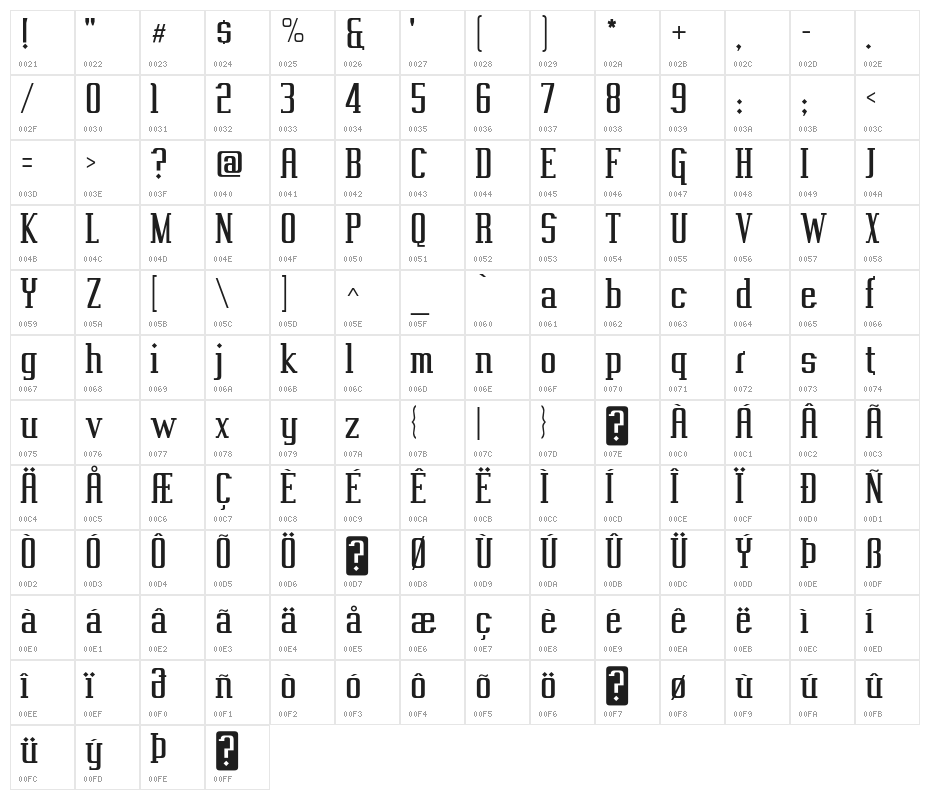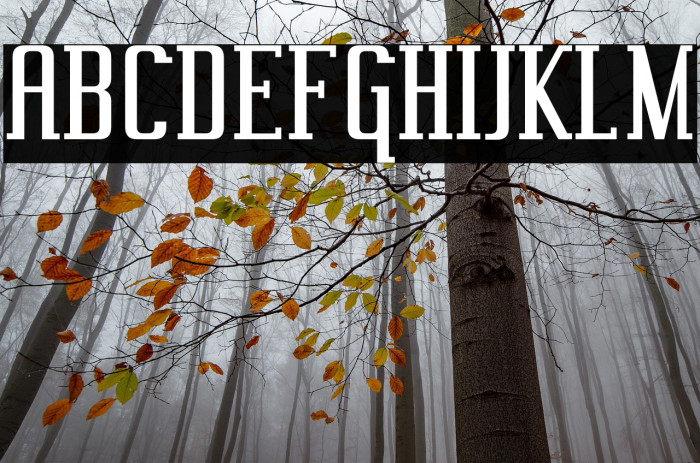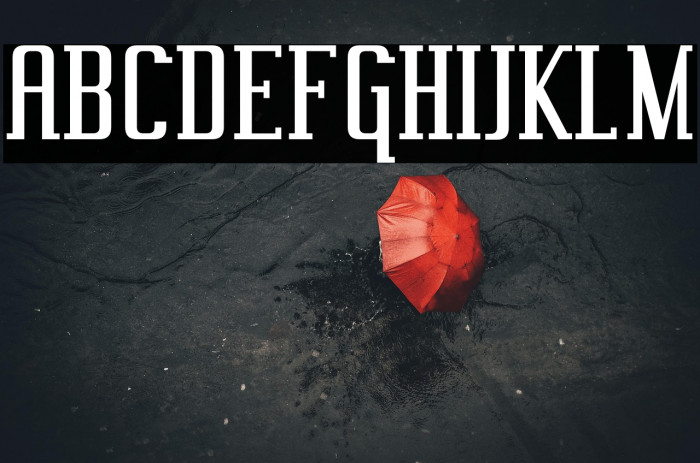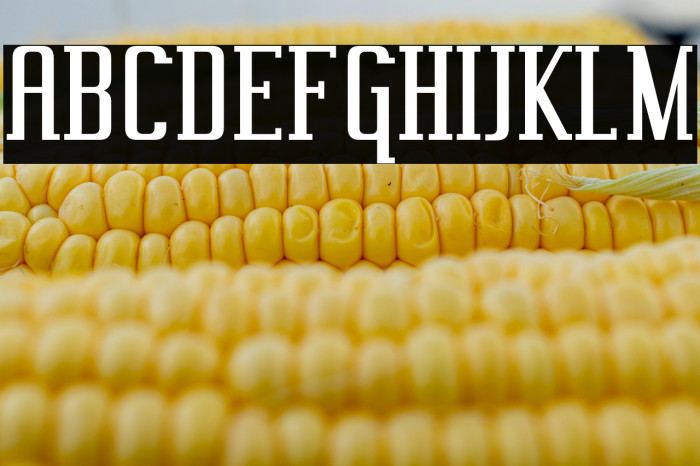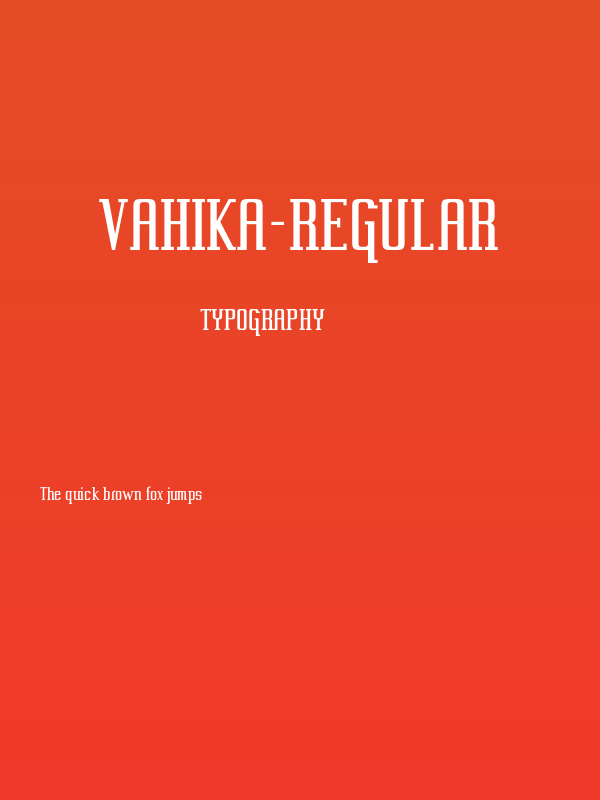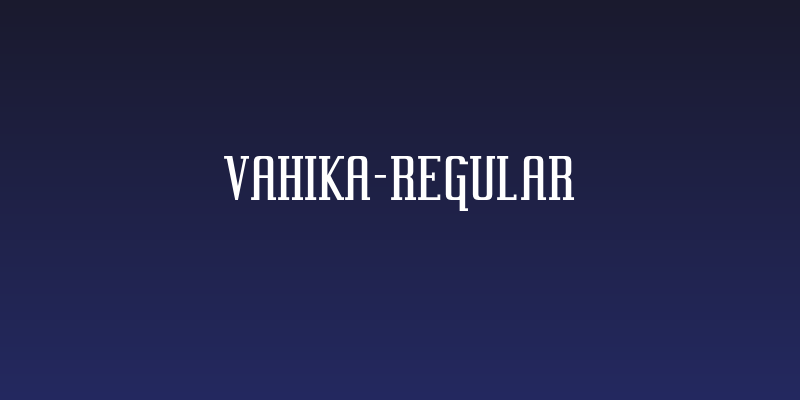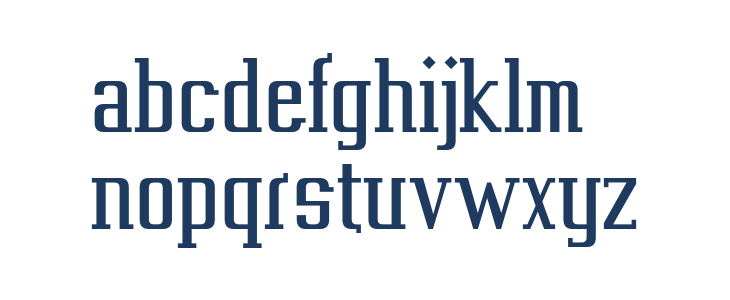
Vahika-Regular Font
Vahika-Regular Description
This font features a bold, slab serif style with a strong presence and distinctive character. The uppercase letters are tall and narrow, with pronounced serifs that add a touch of elegance and authority. The lowercase letters maintain a consistent style, offering a harmonious balance with the uppercase. The numerals are clear and easy to read, making them suitable for various applications. Special characters are well-defined, enhancing the font's versatility. The overall design is modern yet retains a classic appeal, making it suitable for a range of creative projects.
| Proposed Projects | Ideal for branding, headlines, posters, and editorial design. |